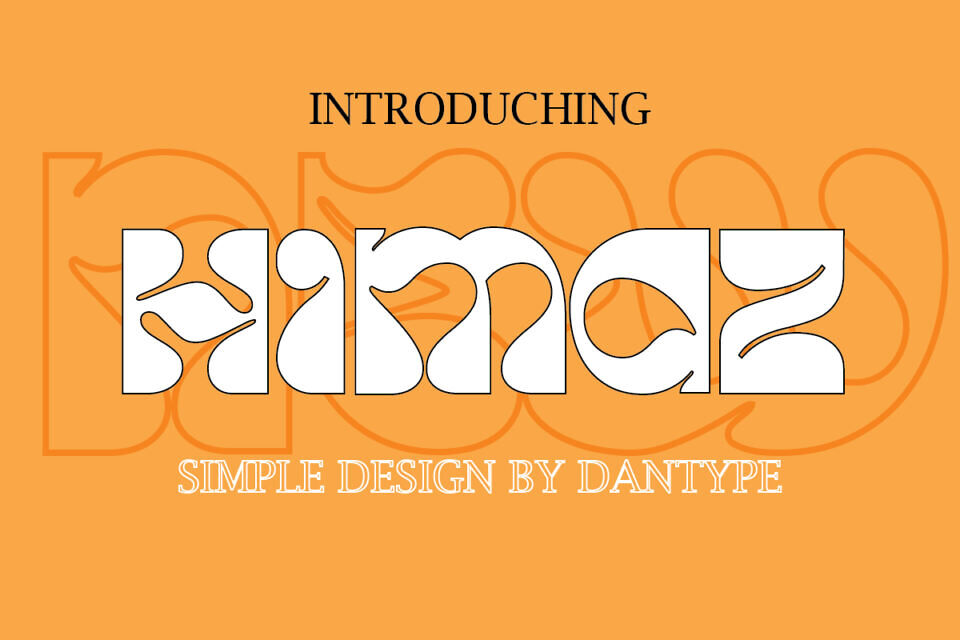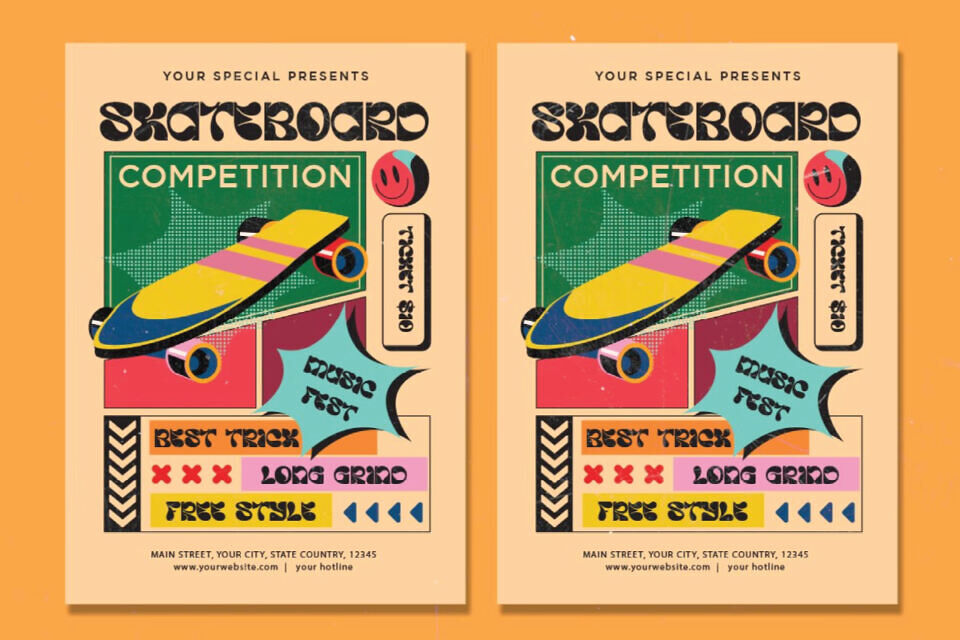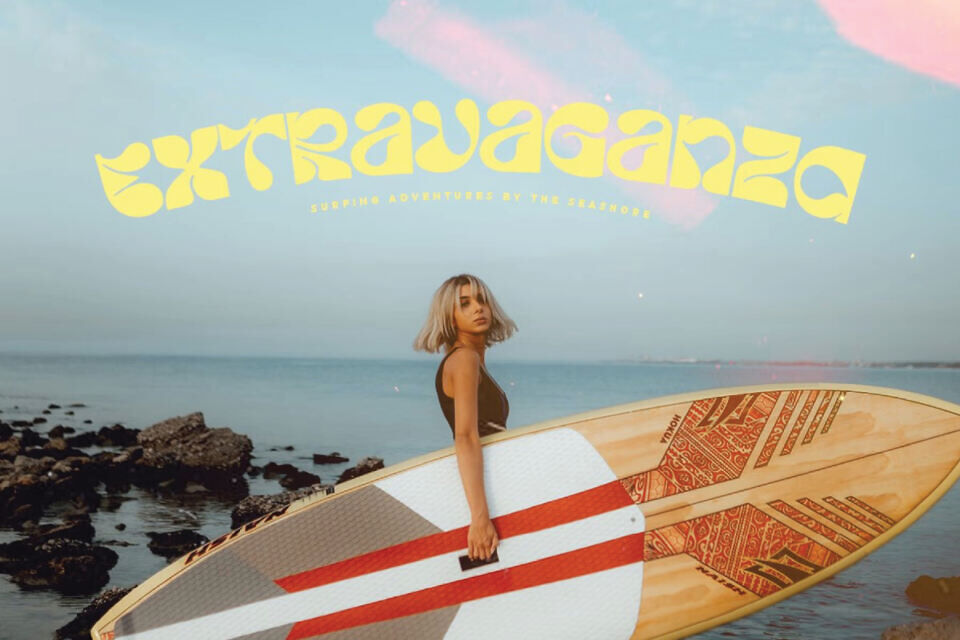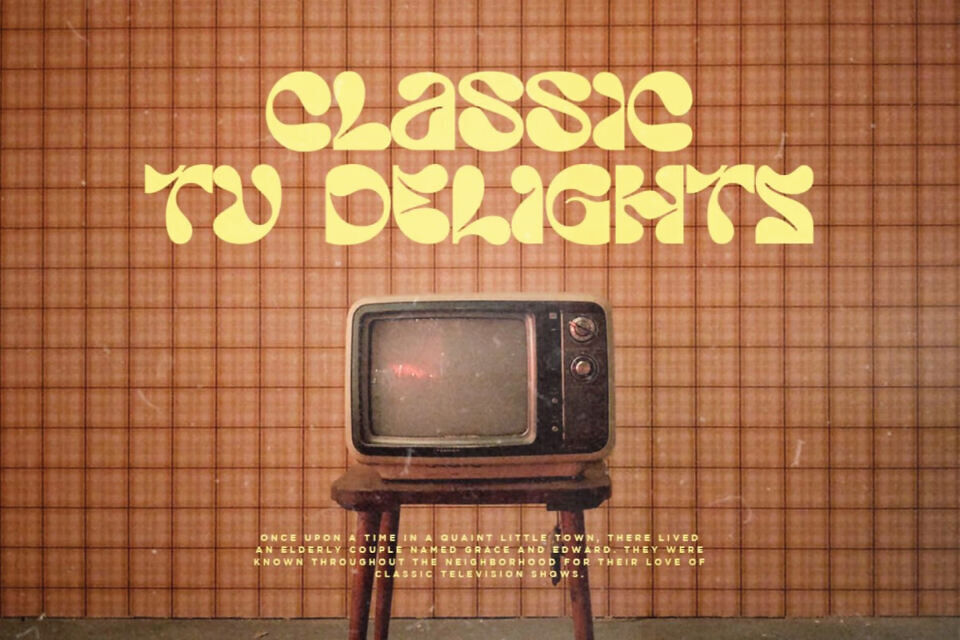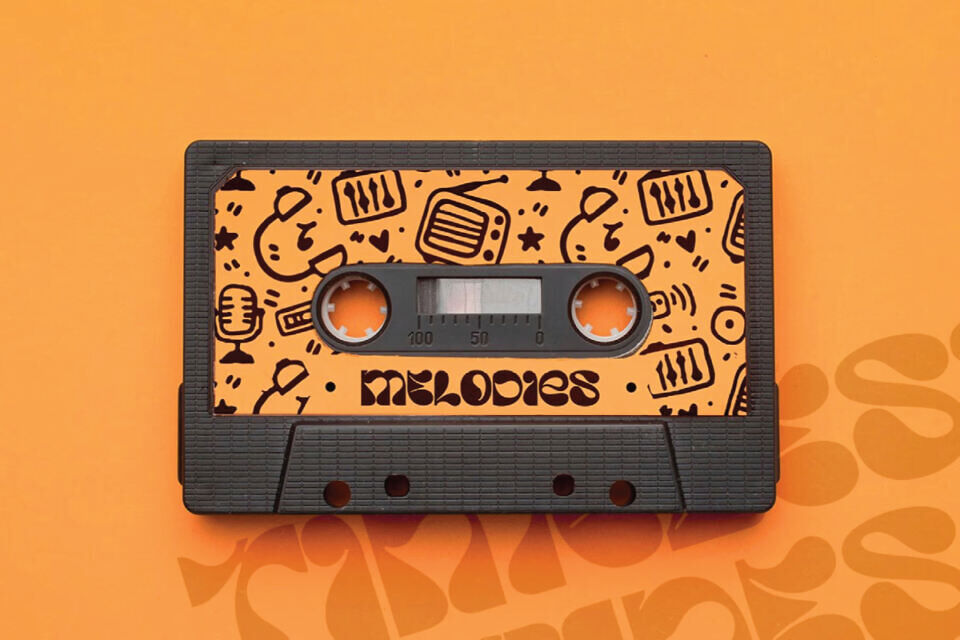
Himaz Font
Himaz is a Psychedelic display font by Dan Type. This font would be perfect for photography, watermarks, social media posts, advertisements, logos & branding, invitations, product design, labels, stationery, product packaging, special events, and other projects.
Designed by: Dantype